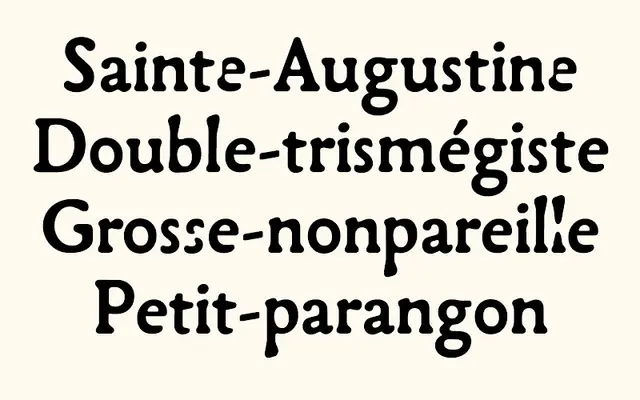
Garabosse
An experimental display typeface from U+270D that takes Garamond as its starting point and pushes it toward something more expressive and unusual.
Produced by U+270D, the type department of the École Européenne Supérieure d'Art de Bretagne, Garabosse reworks Garamond's familiar oldstyle forms into something more wilfully strange. The name itself suggests a playful distortion of the Garamond lineage. Suited to editorial and cultural contexts where a knowing departure from convention is welcome.
Garabosse appears to be an experimental or display interpretation of Garamond-derived forms, likely distorted or redrawn for expressive use, placing it in the display/experimental serif category rather than a conventional text serif.